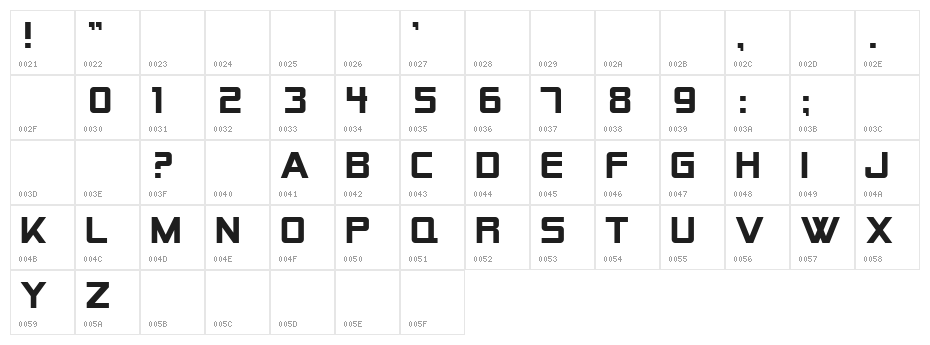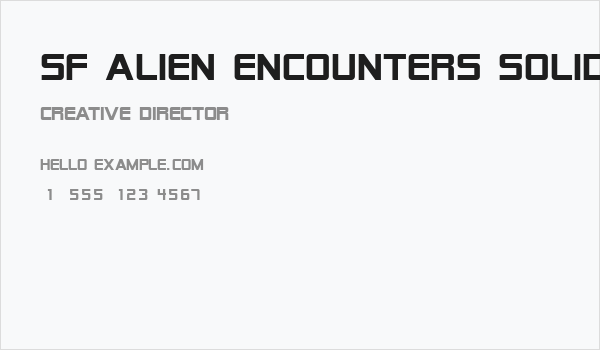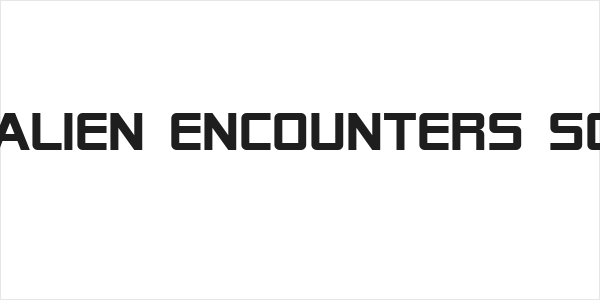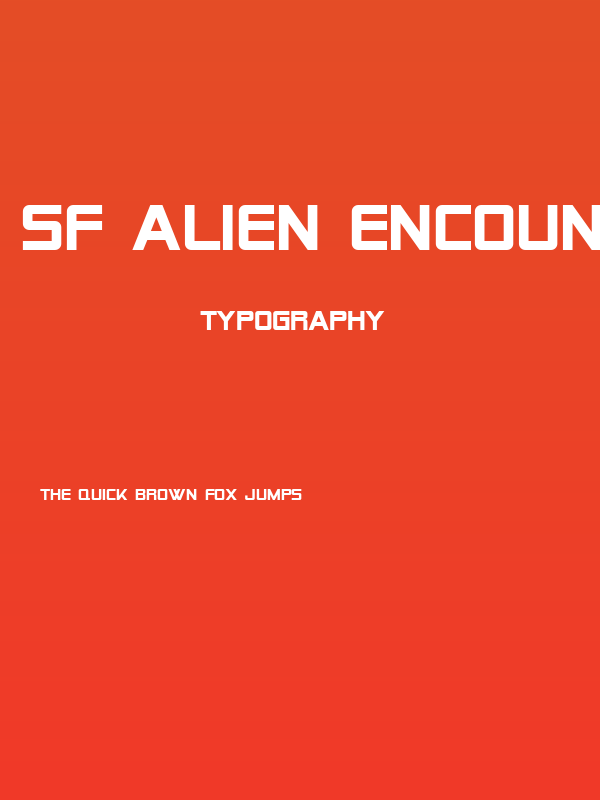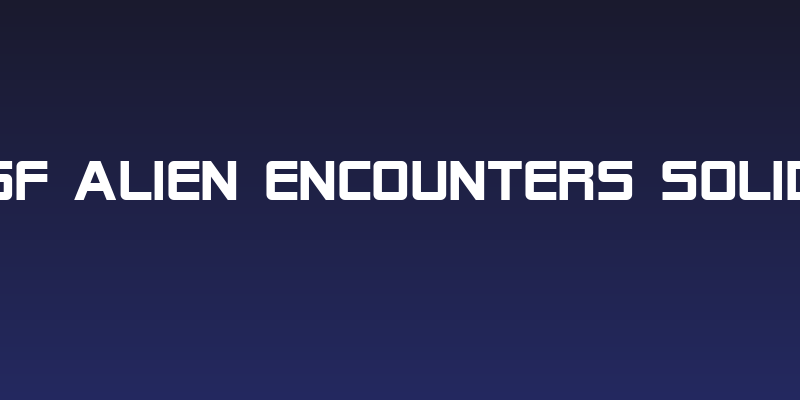
SF Alien Encounters Solid Font
SF Alien Encounters Solid Description
This font features a futuristic and geometric design, characterized by bold and solid letterforms. The characters are constructed with sharp angles and straight lines, giving it a modern and tech-inspired appearance. The uppercase and lowercase letters maintain a consistent style, with a uniform thickness throughout. The numerals are equally bold, ensuring readability and a cohesive look. Special characters are designed to match the overall aesthetic, making this font suitable for digital and sci-fi themed projects.
Proposed ProjectsIdeal for sci-fi movie posters, video game titles, tech branding, and digital interfaces.